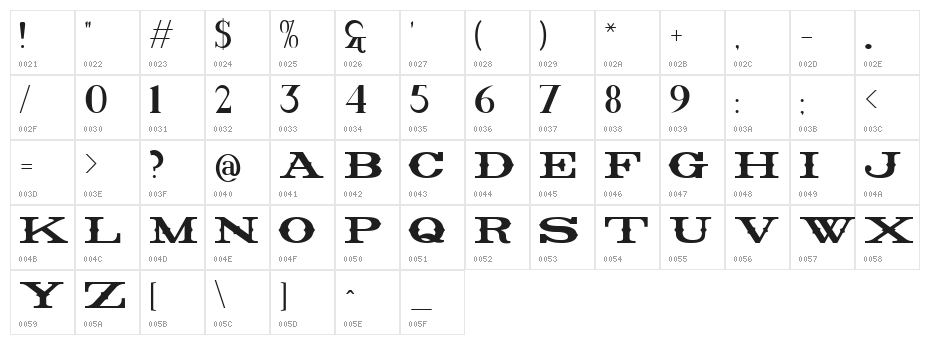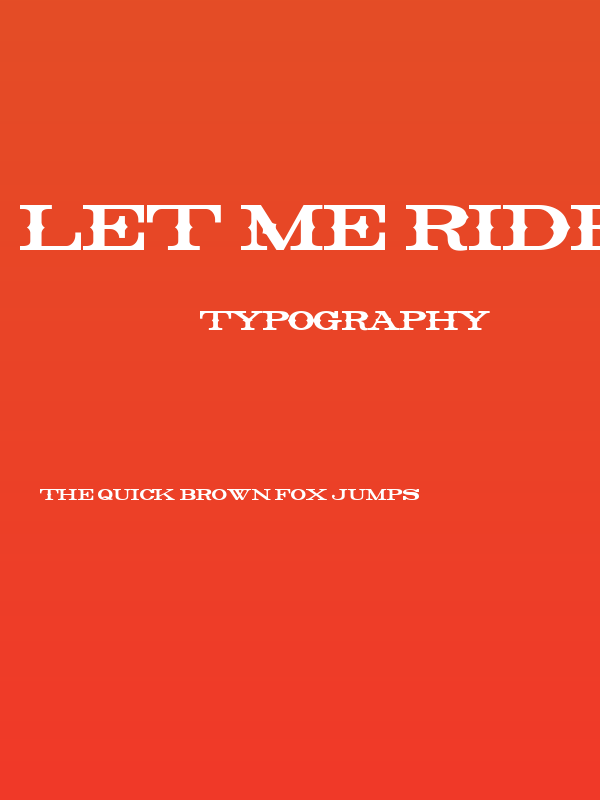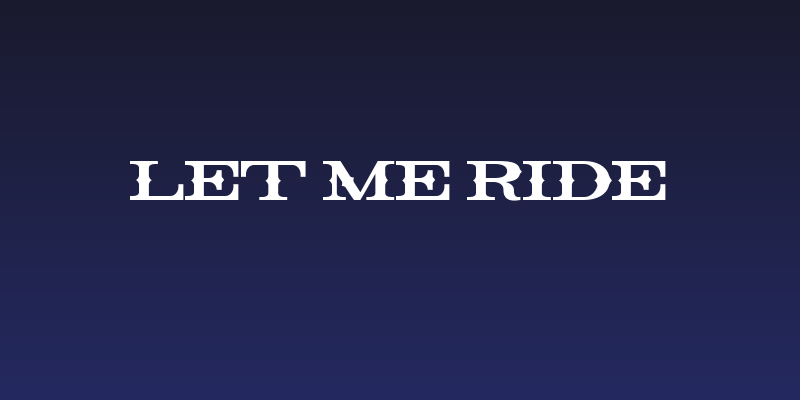
Let Me Ride Font
✎ Western
Let Me Ride Description
This font features a bold and striking design with strong serifs and high contrast between thick and thin strokes. The uppercase letters are particularly prominent, with a classic and authoritative appearance. The numerals are equally bold, maintaining the same high contrast and serif details. The special characters are designed to match the overall boldness and style, making them suitable for impactful statements. The font's style is reminiscent of traditional serif fonts but with a modern twist, making it versatile for various design applications.
| Categories | Western |
| Overall Style | Classic |
| Proposed Projects | Ideal for headlines, posters, branding, and editorial design where a strong, authoritative presence is desired. |